Fonts for apps help define the macro visual style of your design, and have a direct impact on user experience. That’s why designers are always advised to choose the right font in order to create a stunning mobile app.
We’ve picked 20 of the best free and paid fonts that you can use to improve your Android or iOS apps with ease. A detailed guideline about how to choose the right font for your apps is also included.
Why is a good font so important for your app?
Selecting a good font is crucial for UI/UX designers to create a successful mobile app. However, do you know why it is necessary? Here are the main reasons:
- A good font brings better readability and legibility.
The text in every design helps the users understand the features and interact with your mobile apps smoothly. A clear and neat font simplifies the process and increases the readability and legibility of your mobile pages.
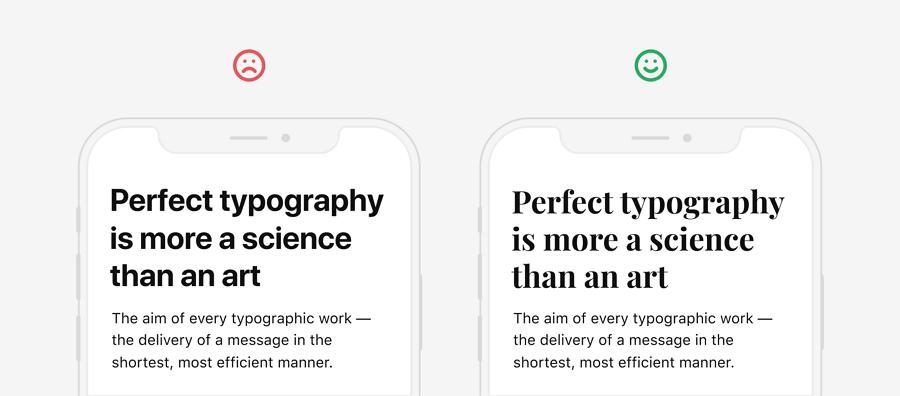
- A good font makes a great first impression.
A good font can make your mobile apps stand out from other competitors easily. Sometimes, it personalizes your logos and brands, leaving a great first impression on your audience quickly.
- A good font often indicates a better user experience.
A good font often means better readability, helping enhance user experience. Moreover, the visual style of your font designs also defines the overall feel of your mobile apps, providing a different visual experience for your users.
In short, a good font has a direct impact on your mobile apps and helps enhance UX easily. You and your team should pay a lot of attention to choose or customize a good font for your apps.
How to choose the right font for your mobile app?
After knowing the importance of fonts in mobile design, let’s learn how you can choose the right font for your mobile app. Here are some tips that you should consider:
- Figure out your design goals
Before you search for an app font online, you should first figure out your design goals. How do you want your audience to react to your text and fonts? Do you use the font to only ensure basic performance and functionality? Or do you use the font to personalize your brand and leave a better impression on users? Answers to a lot of questions should be figured out in advance.
- Consider the overall design style and mood
The font you selected often would be integrated into your mobile app. It will also affect the overall style and mood of your mobile app. So, while choosing the font for your app, try to choose the font that matches perfectly with your overall design style and mood. A font family with a sufficient number of weights or styles would be great.
- Think about the readability and legibility
No matter what happens, the basic function of a font is to convey messages clearly. The readability and legibility of a page matters a lot. A font that can help provide better readability and legibility would be a better option for you.
- Select the right font size
The font size is another important factor you should consider. But, which font size is the most readable for apps? Or which is the best font size for mobile apps? According to a recent report, a 16px font is considered to be the best for eyes. You can read the font size guidelines to know the best body font size, text input font size, secondary text font size, etc.
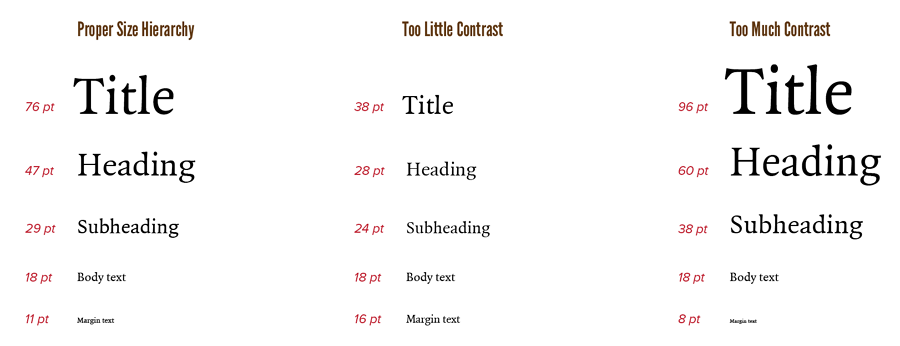
- Pay attention to font scales
Responsive design enables you to deliver content on different screens and devices smoothly, and has become very popular these days. To simplify your design process, you may also select a mobile font, which can be scaled on different mobile devices, for ensuring necessary design flexibility.
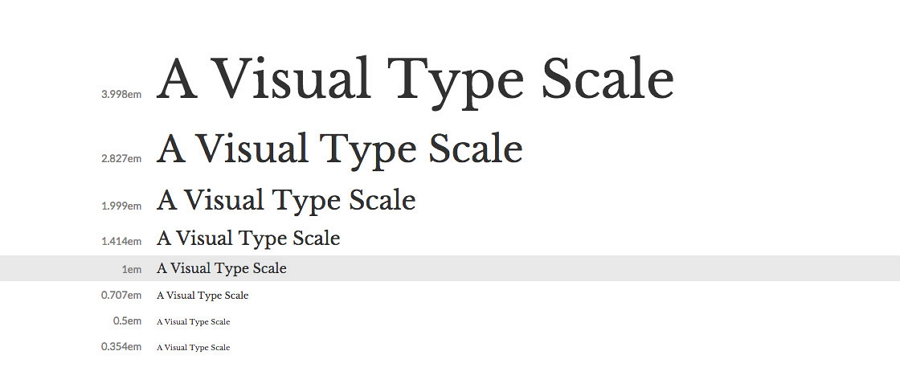
Choose a font that can be scaled on different mobile devices.
- Use one or two fonts at a time
Too many fonts used on a page can easily distract users’ attention and create a very bad user experience. So, always remember to use one or two fonts at a time. To save time and effort, you can choose a font family to easily avoid such distracting issues.
- Keep testing your fonts and apps
10 best free fonts for Android and iOS apps
To help you get started quickly, we’ve listed 10 of the best free fonts for Android and iOS apps:
01. Roboto (Free Google Font for Android)
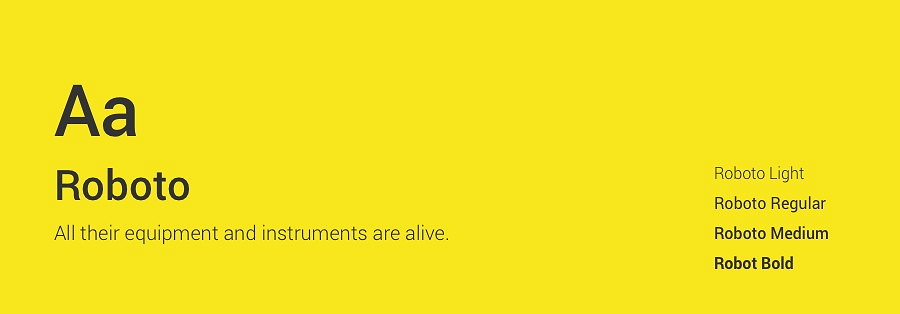
Roboto is a neo-grotesque sans-serif font family that features friendly and open curves. Google has developed it as one of the main system fonts for its mobile operating system on Android phones. It has become very popular these days. So, it would be the first option if you are designing an Android mobile app.
02. San Francisco (Free font for iOS)
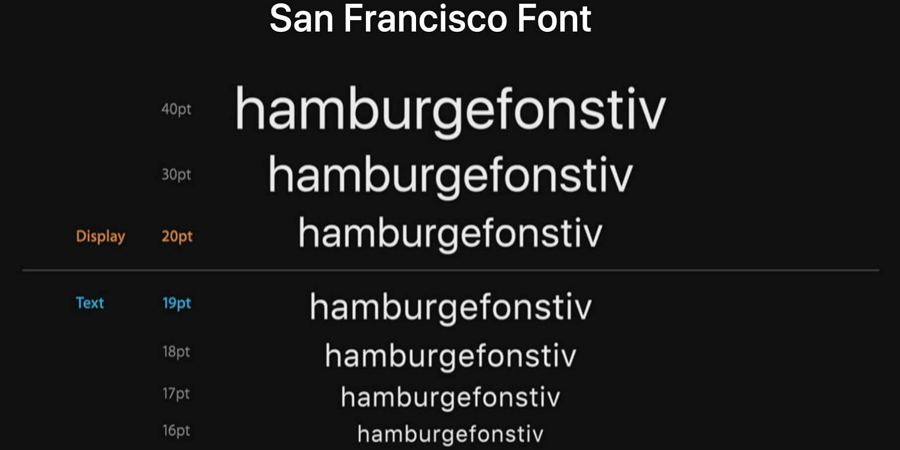
San Francisco is another neo-grotesque sans-serif font that can help you create consistent, legible, and friendly page content for mobile apps. Since Apple Inc has chosen it as the system font for its iOS, macOS, and tvOS devices, you will never go wrong with it while building iOS mobile apps. It is best for logos and branding.
03. Open Sans (Free Google font)
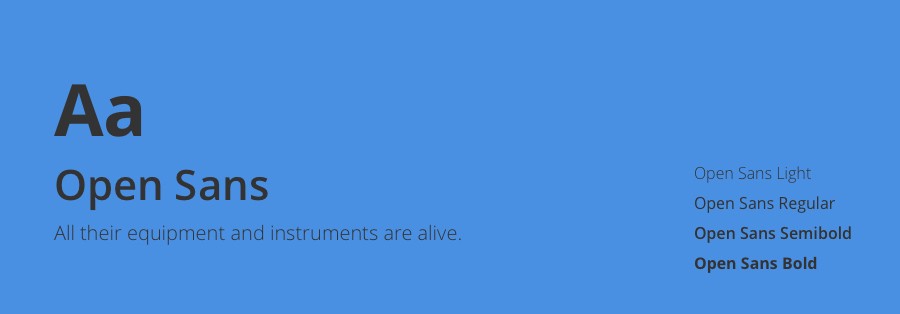
Price: Free
Format: TTF
Open Sans is a humanist sans-serif typeface designed by Steve Matteson. It features an upright stress, open forms and a neutral, yet friendly appearance, and has been regarded as the second most widely-used Google font. It is perfect for use in both your Android and iOS mobile apps.
04. Lato (Free Google font)
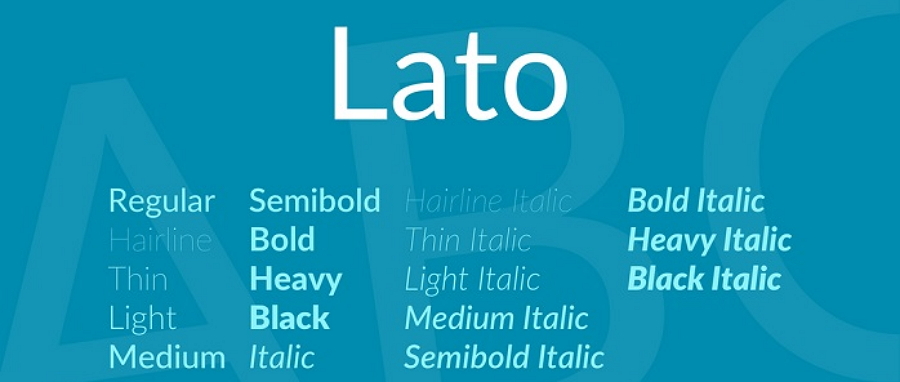
Price: Free
Format: TTF
Lato is a sans-serif typeface family designed by Lukasz Dziedzic. The semi-rounded details on its letters can give your mobile pages a feel of warmth, while the strong structure provides stability and seriousness. It is a good option for both personal and commercial use.
05. Montserrat (Free Google font)
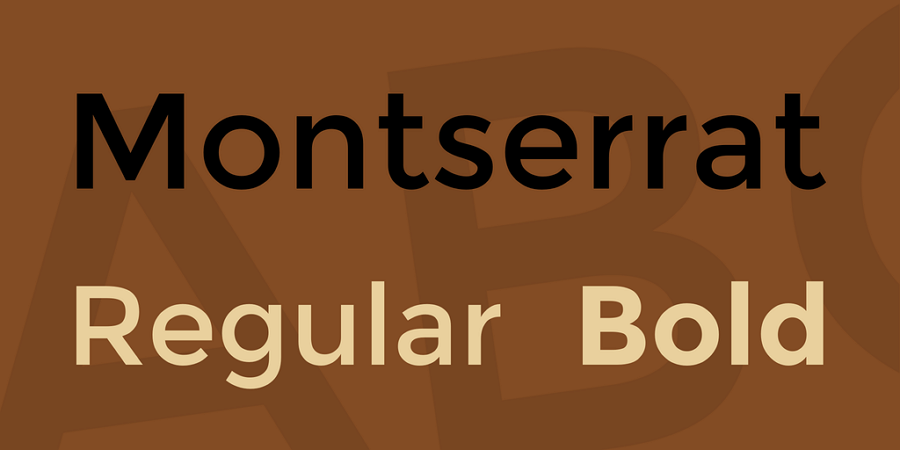
Price: Free
Format: TTF
Montserrat is a famous Google font with a retro style. It has two sister font families, Alternates and Subrayada, which have a similar design style. If you are looking for fonts to create retro mobile apps, Montserrat would be the best option for you.
06. Proxima Nova
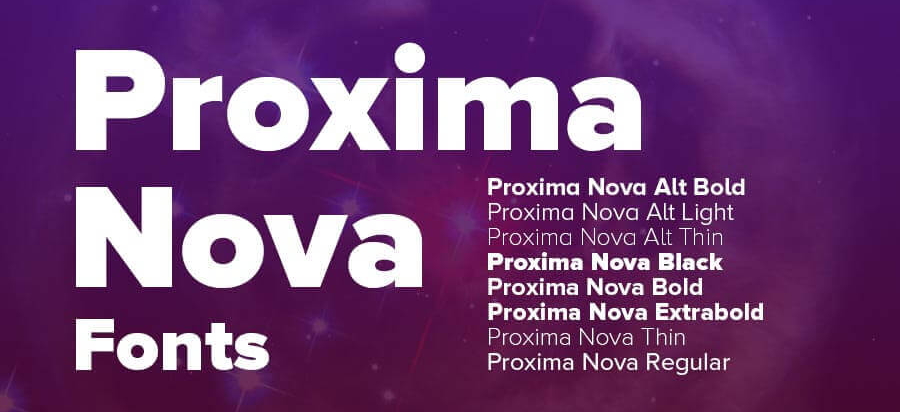
Price: Free
Format: TTF, OTF
Proxima Nova is a sans-serif typeface with 48 styles. It is actually a complete remodeling of Proxima Sans (1994), and bridges the gap between typefaces like Futura and Akzidenz Grotesk. It has now replaced Helvetica as one of the most popular mobile app fonts.
07. Nexa
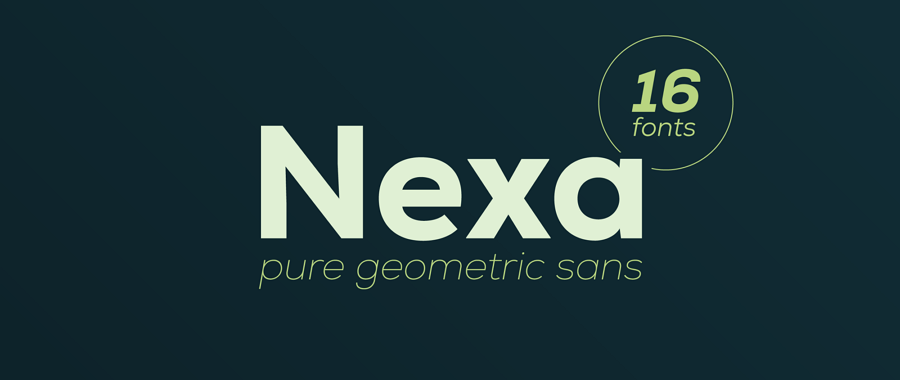
Price: Free
Format: TTF, OTF
Nexa is a simple and modern font family with 16 very unique font styles and weights. It is best used for headlines and text blocks. It is perfect to help you create mobile pages with clear layouts.
08. Ubuntu
Price: Free
Format: TTF
Ubuntu is a modern and humanist-style font family with all the OpenType features. It enables the personality seen and felt on every element of your website or mobile screens. It is the best font for creating personalized yet impressive mobile apps.
09. Nunito
Price: Free
Format: TTF
Nunito is a well-balanced sans-serif typeface superfamily with a full set of weights. It offers designers two versions: the rounded version and non-rounded version. Both of them can help you create modern and distinctive mobile apps.
10. Source Sans Pro
Price: Free
Format: TTF
Source Sans Pro is known as the first open-source typeface family from Adobe, and provides users with six weights in upright and italic styles. It is a good option to help you create more pleasant reading textures for your mobile apps.
10 of the best paid fonts for Android and iOS apps
If the best free fonts above are not helpful, you may try 10 of the best paid fonts for your Android and iOS apps:
01. Helvetica
Price: $35
Helvetica is a widely-used sans-serif typeface family designed by Max Miedinger. Many designers like to use this font in their designs because of its unique and stylish look. It is the best font for creating a mobile app giving a warm and romantic feel.
02. Sabon
Price: $35
Sabon is an old-style sans-serif font family that offers designers four unique styles. Due to its smooth texture, it has been used by many designers and typographers in their designs. It is a good tool to help you create an old-fashion mobile app.
03. Brandon Grotesque
Price: $40
Brandon Grotesque is a modern and elegant sans-serif typeface family that offers six weights (including Light, Thin, Medium, Black, and Regular weights) to help designers present headlines and long text stylishly. It is excellent for logos, branding, and apps.
04. Cera Pro
Price: $55
Cera Pro is a stylish sans-serif font that offers designers 6 weights to visualize their design ideas. It supports 150 languages in Latin, Cyrillic and Greek scripts and can surely meet your design needs easily.
05. Recoleta
Price: $29
Recoleta is a serif typeface family designed by Jorge Cisterna. Its 7 weight options provide designers with a wide range of choices to improve user interfaces. Its unique character also helps them create distinctive logos, cards, and apps easily.
06. Blaak
Price: $29
Blaak is a sharp serif font combined with curves, which can give your mobile pages a modern, stylish, and bold look. It comes with six weights: Thin, Light, Regular, Bold, ExtraBold and Black, allowing you to design your ideas with ease. Each weight also has an italic version to enrich your mobile pages.
07. Alkes
Price: $5.8
Alkes is a multiscript serif typeface family that features a generous x-height, wide letter spacing, large open counters, and angled stress contrast. Since its compelling details, calligraphic structure, and asymmetrical serifs shine in a large size, it is recommended to use it in titles or headlines.
08. Noctis
Price: $39
Noctis was designed by Luca Terzo and features an extended Latin character set of 481 glyphs covering over 190 languages. It also includes advanced OpenType features and is a good option to help you create classic, elegant, and effective apps.
09. Geller Sans
Price: $29
Geller Sans is designed with a wide range of OpenType features, including Kerning, Ligatures, Small Caps, etc. It comes with 4 widths, enabling you to clearly visualize hierarchies with fonts only.
10. Quincy CF
Quincy CF is a clean and text-friendly sans-serif font. Its warm letterforms and medium contrast can give any test a smooth and calming feeling.
Conclusion
Fonts affect many aspects of your mobile apps and should never be ignored.
We hope that the best free and paid font examples mentioned above can help you create your desired apps with ease. If this is not possible, the simple guidelines about how to choose the right font for apps will also surely help you select a proper app font quickly.